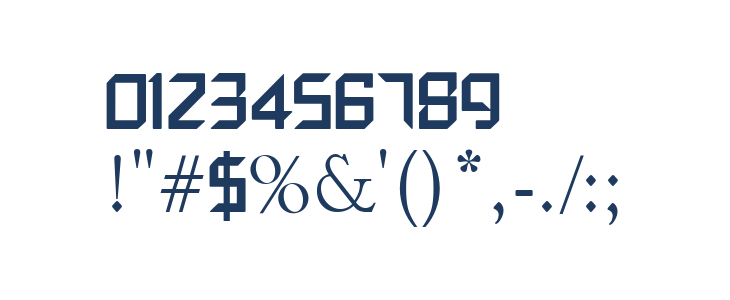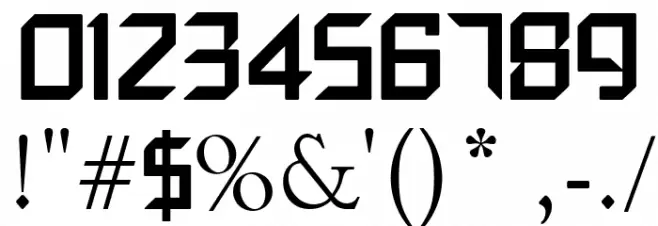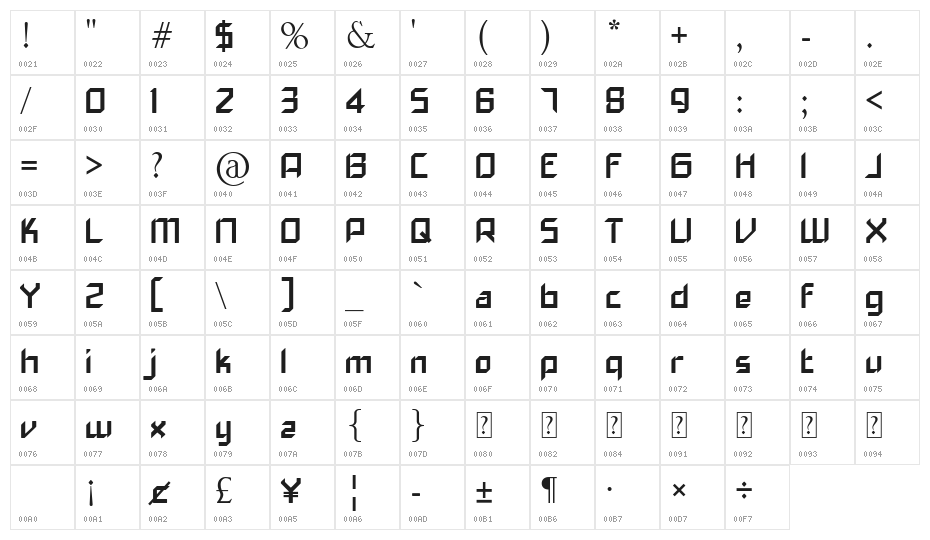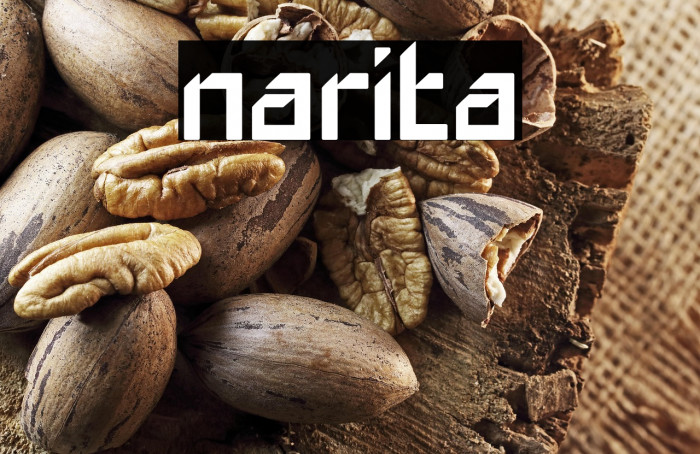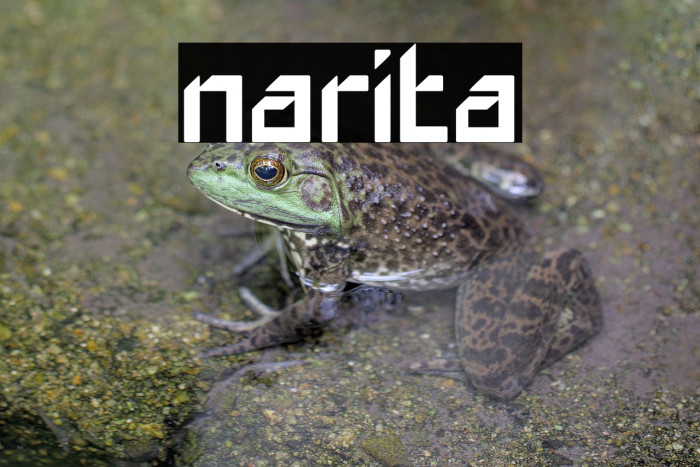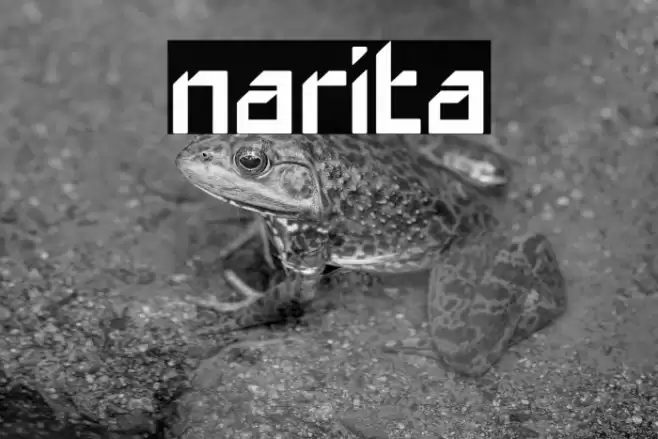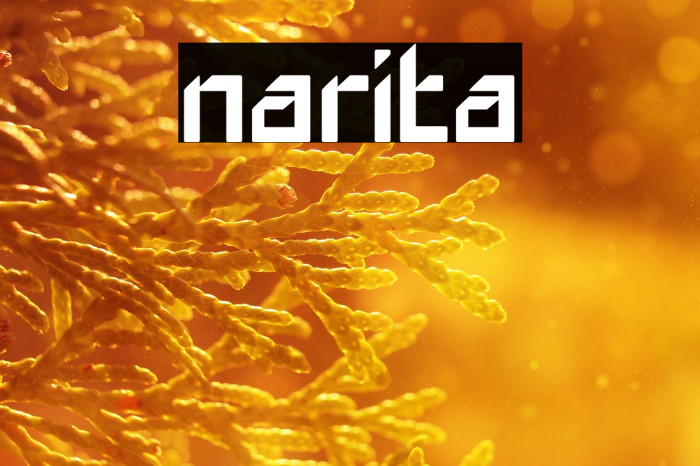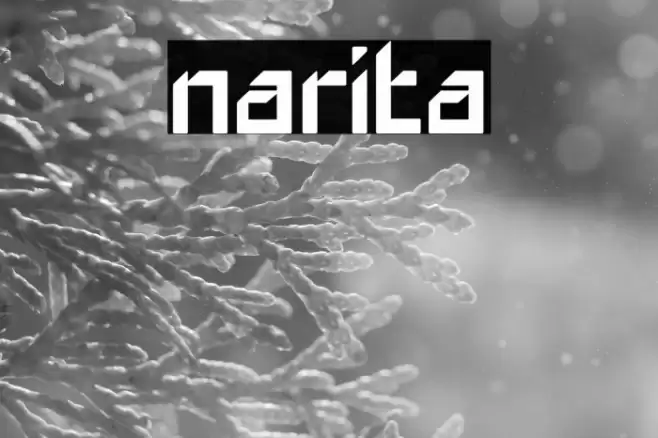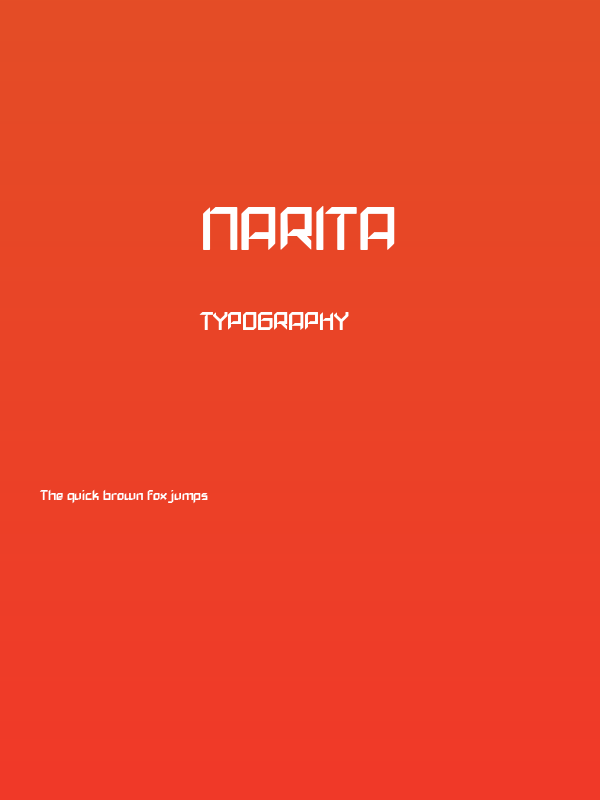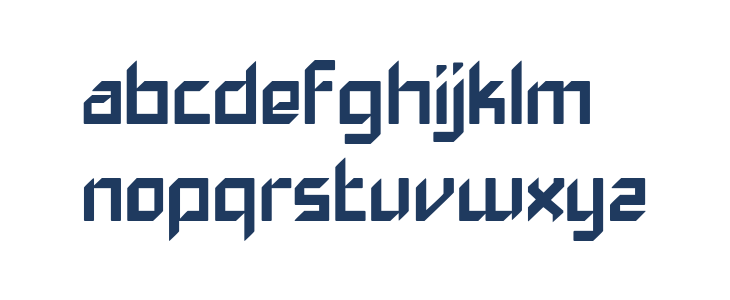
narita Font
narita Description
This font features a bold, geometric design with sharp angles and a futuristic aesthetic. The uppercase letters are distinct with angular cuts and a uniform height, creating a cohesive and modern look. The lowercase letters maintain the geometric theme, offering a unique twist on traditional letterforms. Numbers are consistent with the angular style, ensuring readability while maintaining the font's distinctive character. Special characters are designed to match the overall aesthetic, making this font versatile for various applications.